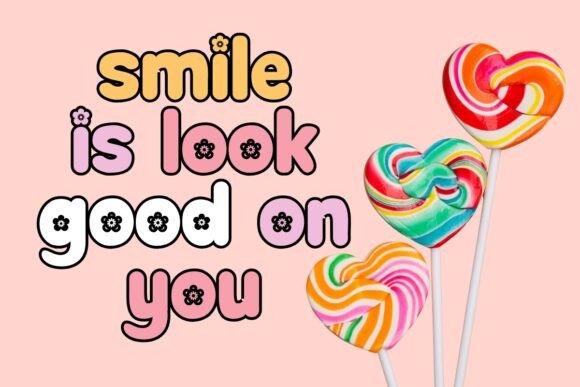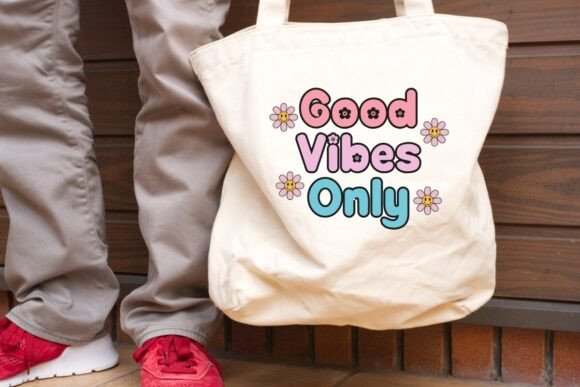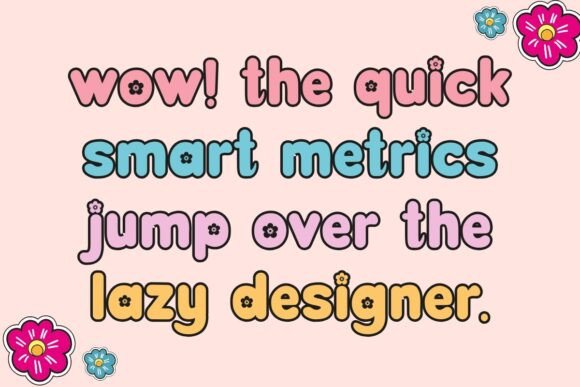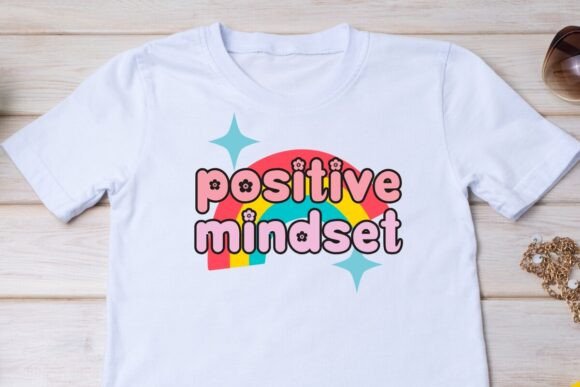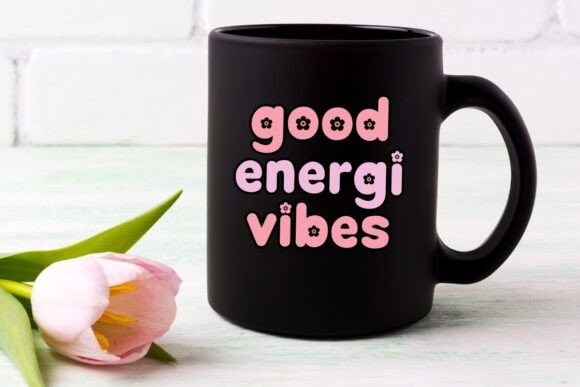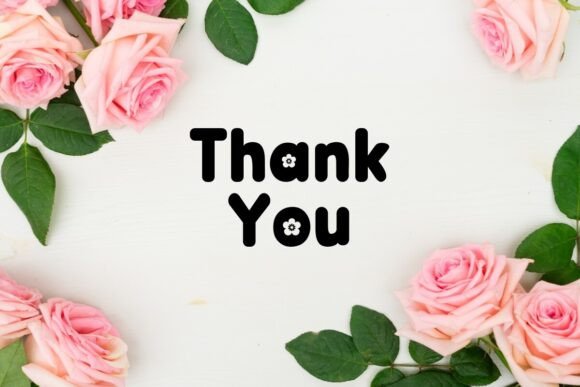
Unleash Your Creativity with Crafty Alphabet Font
Are you tired of using the same old fonts in your designs? Look no further! Introducing Crafty Alphabet, an enchanting and inventive display font that’s as quirky as it is distinct. This playful and bold font is perfect for designers and crafters who want to add a touch of personality to their creations.
The Perfect Blend of Quirkiness and Sophistication
Crafty Alphabet is a one-of-a-kind font that effortlessly blends quirkiness with sophistication. Its unique aesthetics and stunning style make it the perfect enhancement for your cherished designs. Whether you’re working on a logo, branding project, or social media graphics, this font is sure to make your creations stand out from the crowd.
Key Features of Crafty Alphabet Font
- Playful and Bold: Crafty Alphabet is a display font that’s designed to make a statement. Its bold and playful style is perfect for creating eye-catching designs that grab attention.
- Unique Aesthetics: This font boasts a unique and distinctive style that’s sure to set your designs apart from the rest.
- Inventive and Creative: Crafty Alphabet is an inventive font that’s perfect for creative projects. Its quirky style encourages experimentation and creativity.
- Easy to Read: Despite its bold and playful style, Crafty Alphabet is easy to read, making it perfect for use in a variety of design projects.
How to Use Crafty Alphabet Font in Your Designs
Crafty Alphabet is a versatile font that can be used in a variety of design projects. Here are a few ideas to get you started:
- Logos and Branding: Use Crafty Alphabet to create a unique and memorable logo that reflects your brand’s personality.
- Social Media Graphics: Add a touch of personality to your social media graphics with Crafty Alphabet. Its bold and playful style is perfect for creating eye-catching posts and stories.
- Invitations and Stationery: Use Crafty Alphabet to create beautiful and unique invitations, greeting cards, and stationery.
- DIY Projects: Crafty Alphabet is perfect for DIY projects, such as crafting, scrapbooking, and paper crafting.
Why Choose Crafty Alphabet Font?
With so many fonts available, why choose Crafty Alphabet? Here are just a few reasons:
- Unique Style: Crafty Alphabet boasts a unique and distinctive style that’s sure to set your designs apart from the rest.
- High-Quality Design: This font is designed with high-quality and precision, ensuring that it looks great in any design project.
- Versatile: This font can be used in a variety of design projects, from logos and branding to social media graphics and DIY projects.
Get Inspired with Crafty Alphabet Font
Crafty Alphabet is more than just a font – it’s a creative tool that’s designed to inspire your designs. With its unique and playful style, this font can help you to:
- Experiment with New Ideas: Crafty Alphabet encourages experimentation and creativity, helping you to try new things and push the boundaries of design.
- Develop Your Personal Style: This font can help you to develop your personal style and aesthetic, setting you apart from other designers and crafters.
- Create Unique Designs: With Crafty Alphabet, you can create unique and eye-catching designs that reflect your personality and style.
In conclusion, Crafty Alphabet is a must-have font for designers and crafters who want to add a touch of personality to their creations. Its unique and playful style makes it perfect for a variety of design projects, from logos and branding to social media graphics and DIY projects. With its high-quality design and ease of use, Crafty Alphabet is sure to inspire your creative journey and help you to create stunning designs that stand out from the crowd.